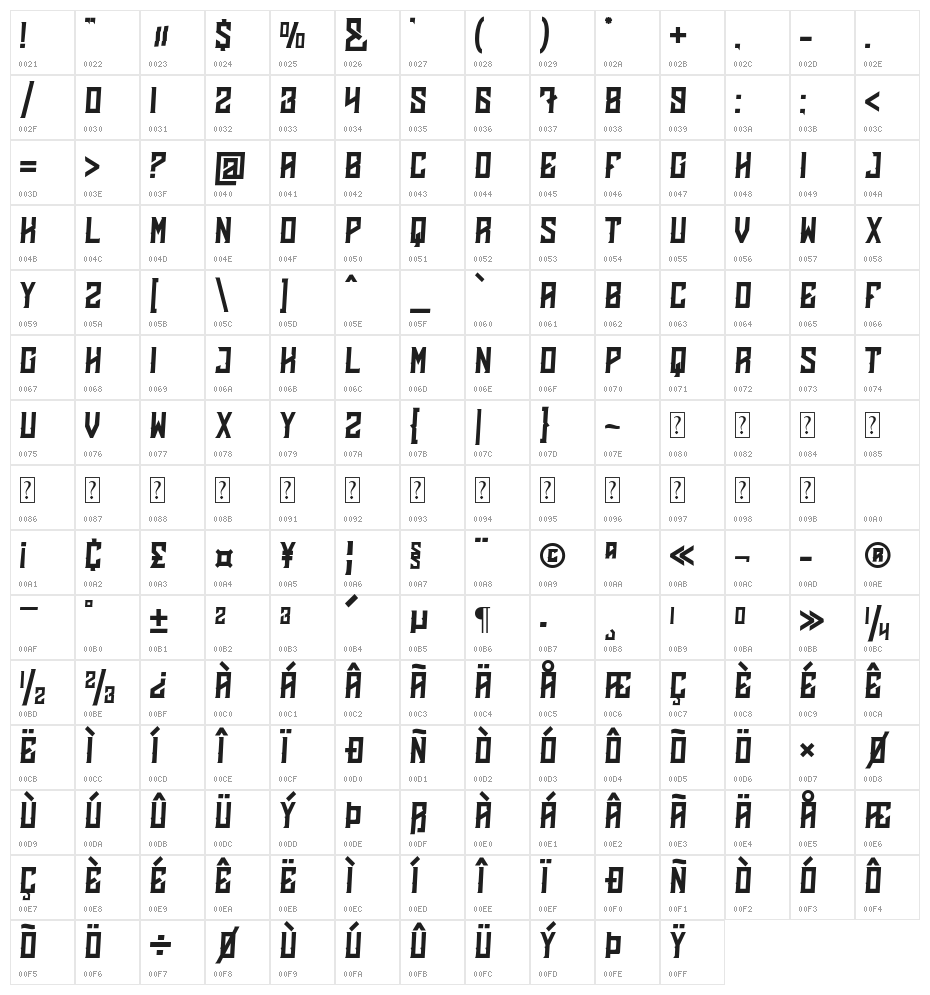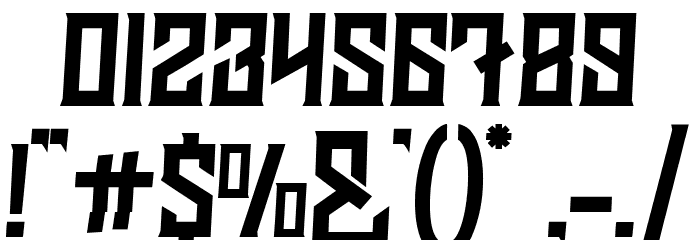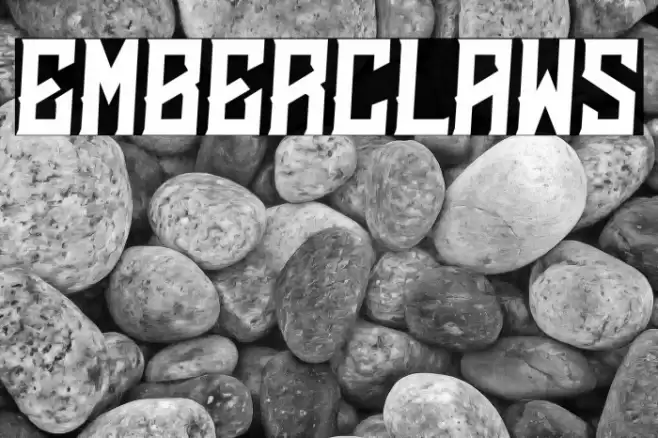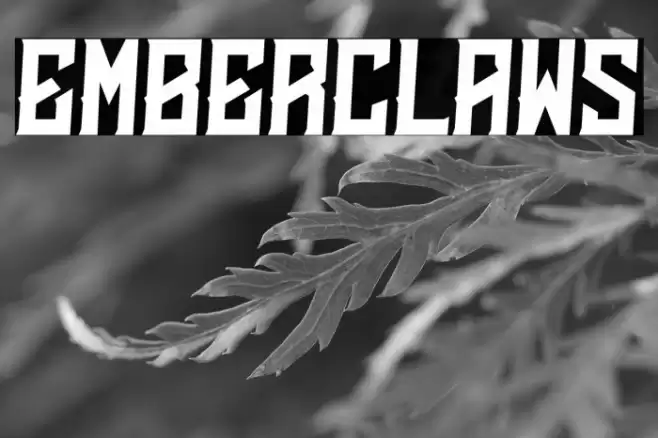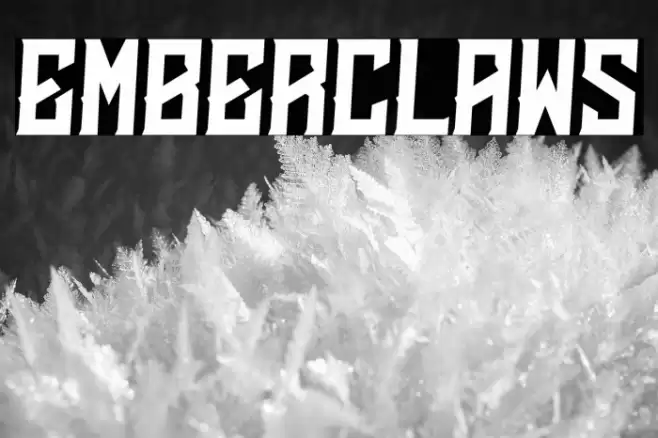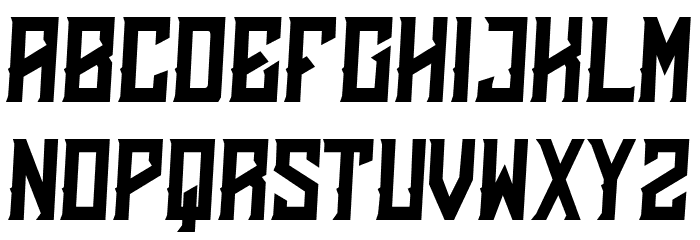
Emberclaws Font
Emberclaws Description
This font features a bold and angular design with a distinct geometric style. The characters are sharply cut with a dynamic and aggressive appearance, making it stand out in any design. The uppercase and lowercase letters maintain a consistent style, with the uppercase letters being slightly more pronounced. Numbers and special characters follow the same angular theme, ensuring uniformity across all text elements. The font's unique style is ideal for projects that require a strong visual impact.
| Proposed Projects | Ideal for branding, posters, video game graphics, and any project needing a strong, impactful typeface. |